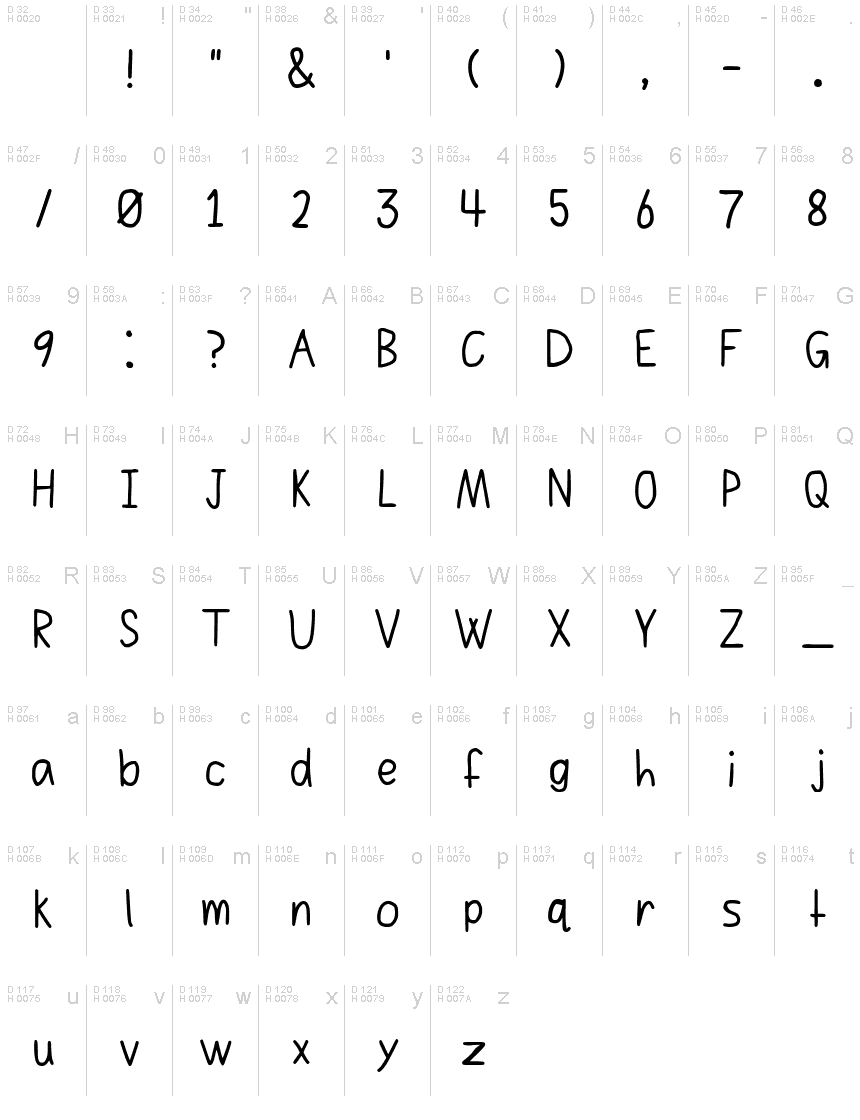
Comic_hand Logan Regular
Comic_hand Logan, a delightful handwritten font designed by Archer Waynwood, is the perfect addition to any project that needs a touch of playfulness and personality. Its semi-light weight adds to its whimsical charm, making it ideal for designs that require a light-hearted feel. This font is an excellent choice for children's books, greeting cards, posters, and social media graphics. Let Comic_hand Logan add joy and character to your next project with its playful letterforms and unique style.